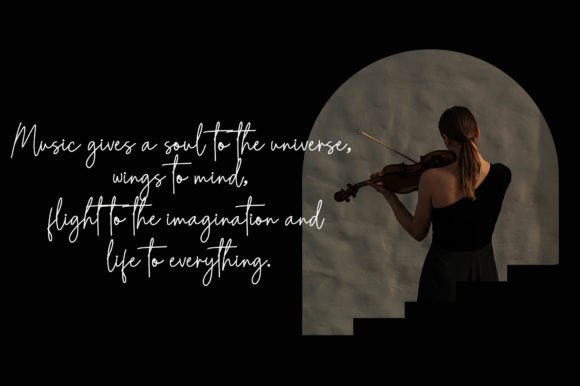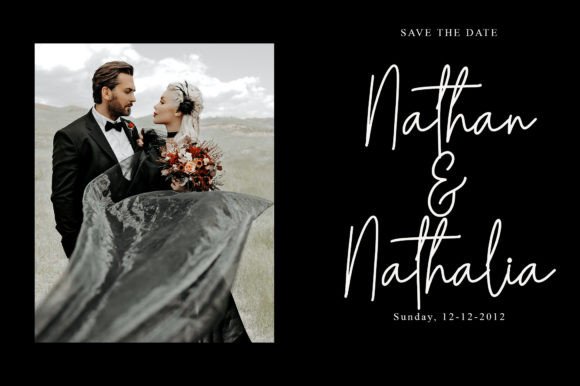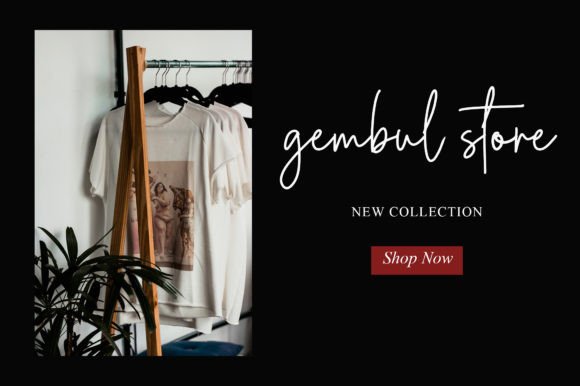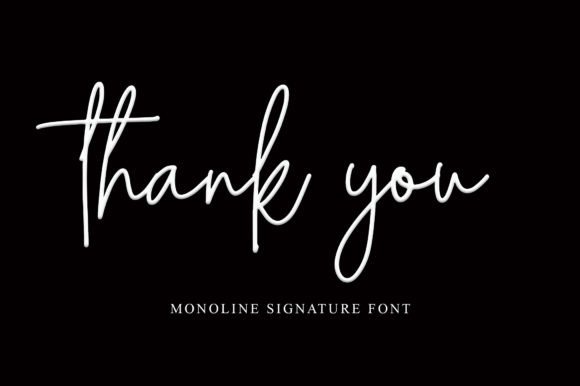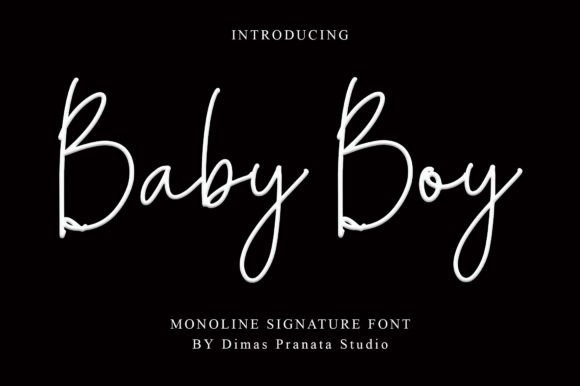
Baby Boy Font: The Ultimate Handwritten Font for Stunning Designs
Are you a designer or crafter looking for a beautiful and unique font to elevate your designs? Look no further than the Baby Boy font! This gorgeous handwritten font is perfect for creating stunning logos, wedding stationery, photography watermarks, modern websites, and more. With its incredibly distinct and timeless style, you’ll fall in love with Baby Boy and want to use it for all your design projects.
What Makes Baby Boy Font So Special?
Baby Boy font is a carefully crafted handwritten font that exudes elegance and sophistication. Its unique and distinct style sets it apart from other fonts, making it perfect for designers and crafters who want to create something truly special. Whether you’re designing a logo, creating wedding stationery, or developing a website, Baby Boy font is sure to impress.
Key Features of Baby Boy Font
- Handwritten style: Baby Boy font is a beautiful handwritten font that adds a personal touch to any design.
- PUA encoded: This font is PUA encoded, which means you can access all of the glyphs and swashes with ease.
- Distinct and timeless style: Baby Boy font has an incredibly distinct and timeless style that will make your designs stand out.
- Multipurpose: This font is perfect for a wide range of design projects, including logos, wedding stationery, photography watermarks, modern websites, and more.
Why Designers and Crafters Love Baby Boy Font
Designers and crafters love Baby Boy font for its versatility and ease of use. With its PUA encoding, you can easily access all of the glyphs and swashes, making it simple to create stunning designs. The font’s handwritten style adds a personal touch to any project, making it perfect for designers who want to create unique and eye-catching designs.
Perfect for Wedding Stationery and Photography
Baby Boy font is a popular choice for wedding stationery and photography projects. Its elegant and sophisticated style makes it perfect for creating beautiful wedding invitations, save-the-date cards, and other stationery. Photographers also love using Baby Boy font for their watermarks, as it adds a touch of class and professionalism to their images.
Use Baby Boy Font for Your Website or Blog
If you’re looking for a font to use on your website or blog, Baby Boy font is a great choice. Its modern and stylish design makes it perfect for creating a unique and memorable online presence. Use it for your website’s logo, headings, or even body text to add a touch of elegance and sophistication.
Tips for Using Baby Boy Font
- Experiment with different sizes and colors: Baby Boy font looks great in a variety of sizes and colors, so don’t be afraid to experiment and find the perfect combination for your design.
- Pair it with other fonts: Baby Boy font pairs well with other fonts, so try combining it with a sans-serif font for a modern and stylish look.
- Use it for headlines and titles: Baby Boy font is perfect for headlines and titles, as its bold and elegant style makes it easy to read and attention-grabbing.
In conclusion, Baby Boy font is a beautiful and versatile handwritten font that’s perfect for designers and crafters. With its incredibly distinct and timeless style, PUA encoding, and multipurpose design, it’s the ultimate font for creating stunning designs. Whether you’re designing a logo, creating wedding stationery, or developing a website, Baby Boy font is sure to impress. So why wait? Fall in love with Baby Boy font and use it to create spectacular designs today!